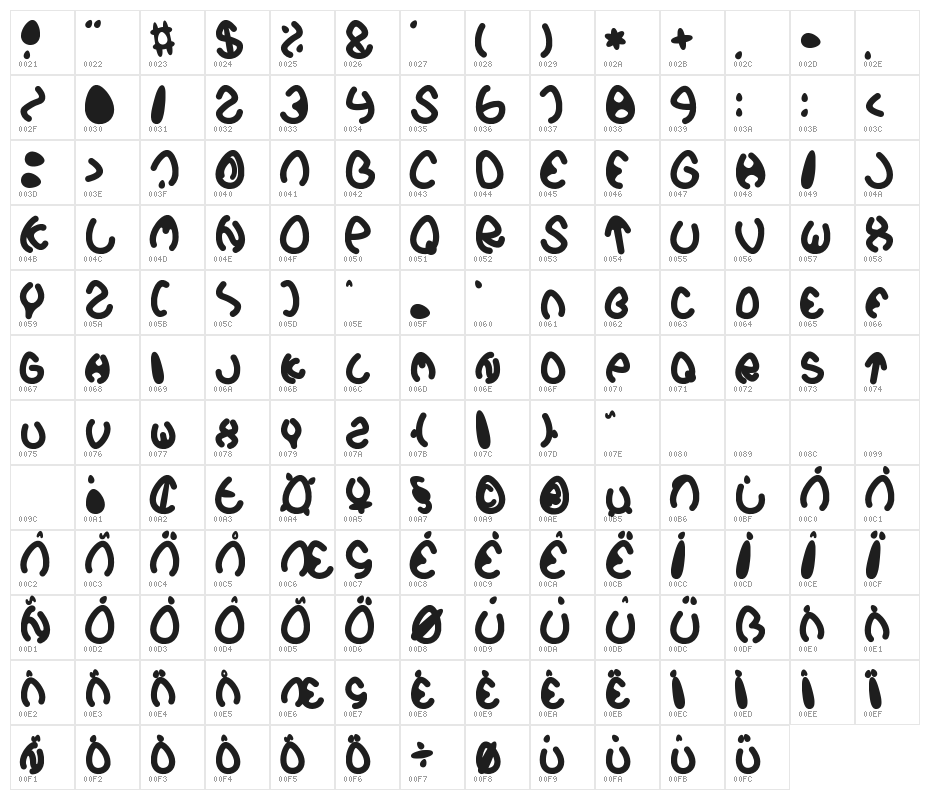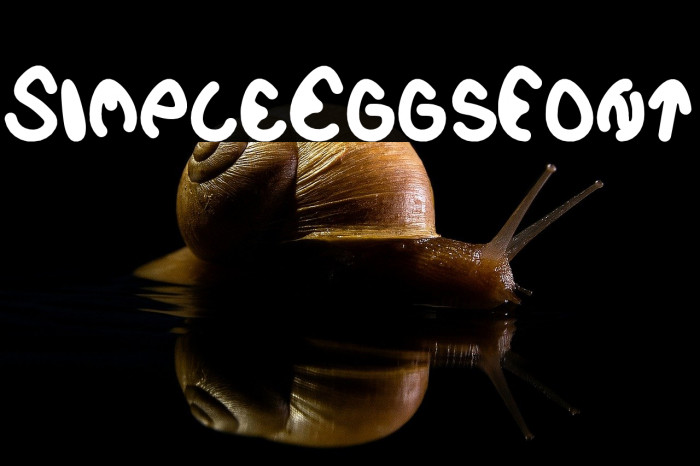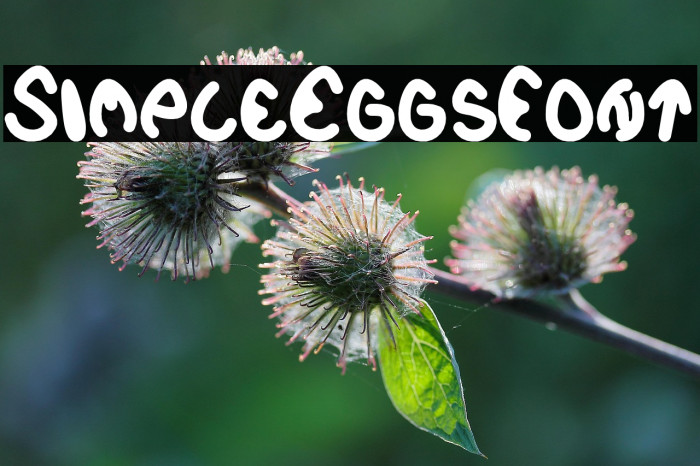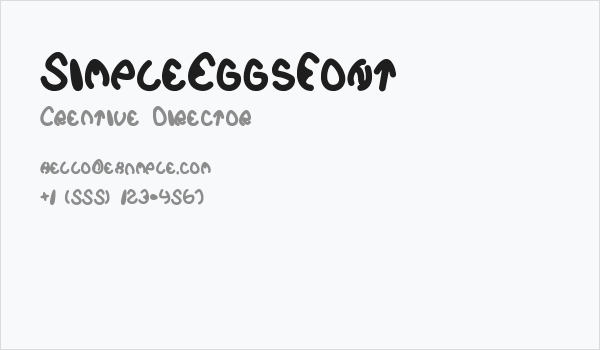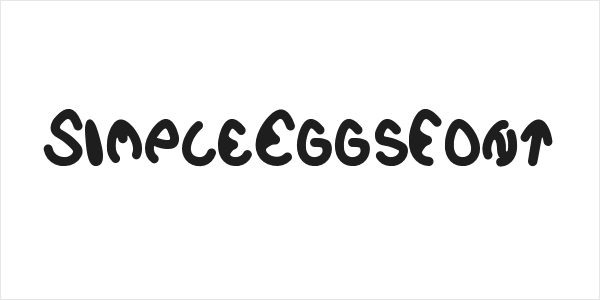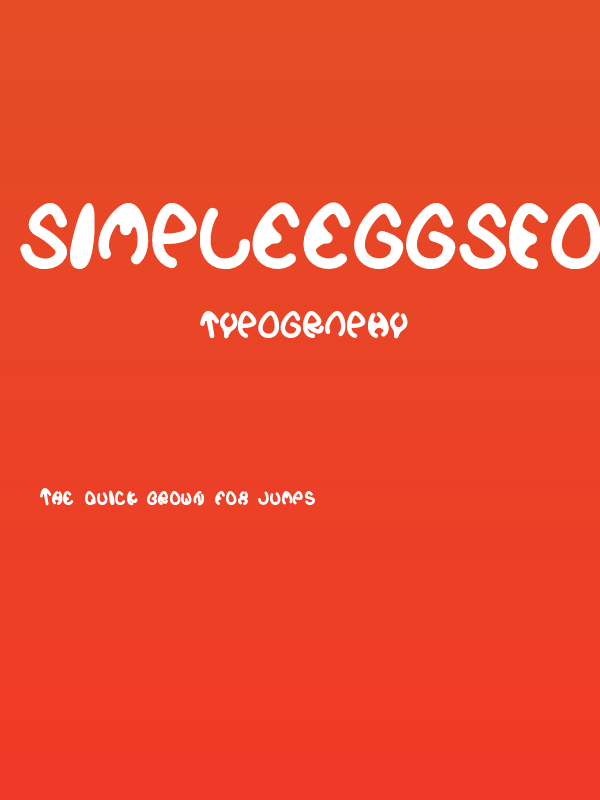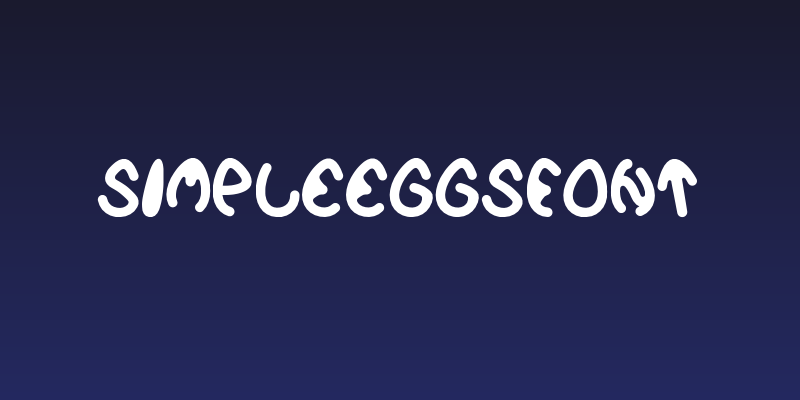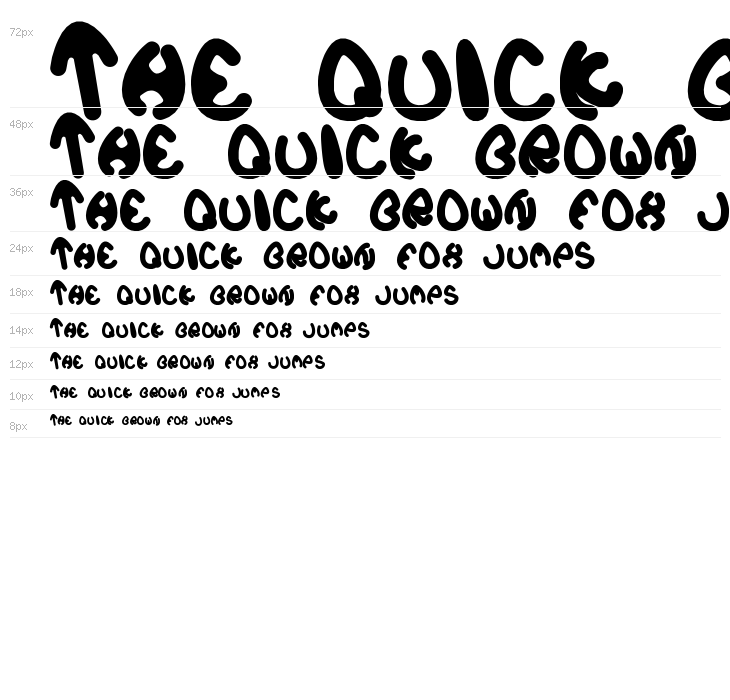
SimpleEggsFont Font
SimpleEggsFont Description
This playful and bold font features rounded, egg-like shapes that give it a unique and whimsical appearance. The characters are thick and heavy, with a consistent stroke width that maintains a uniform look across both uppercase and lowercase letters. The numbers and special characters follow the same design principles, ensuring a cohesive style throughout. The font's distinctive style makes it stand out, with its smooth curves and lack of sharp edges contributing to a friendly and approachable feel. Its boldness ensures high visibility, making it suitable for eye-catching designs.
| Overall Style | Playful, Whimsical |
| Proposed Projects | Ideal for children's books, playful branding, posters, and creative projects that require a fun and approachable typeface. |